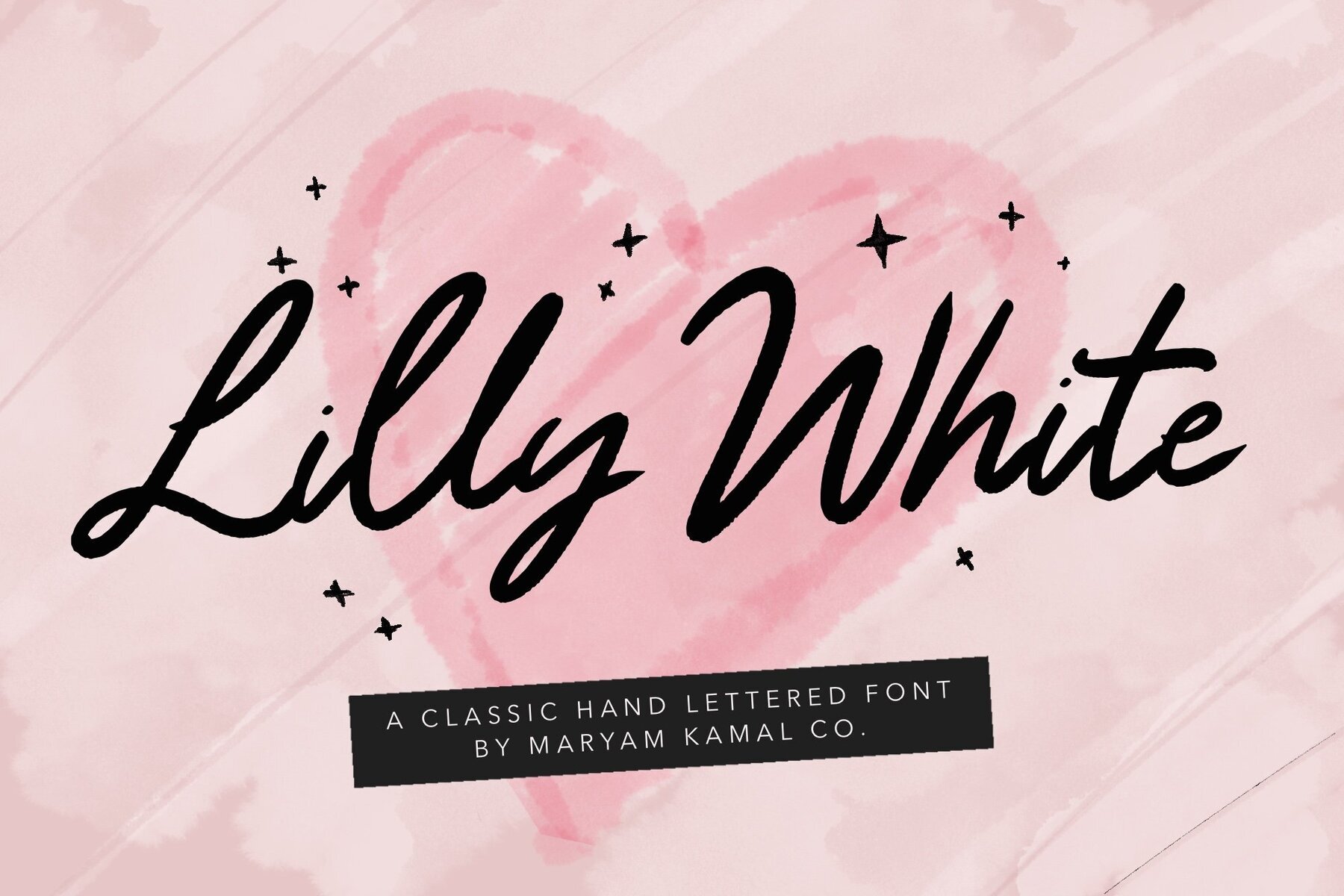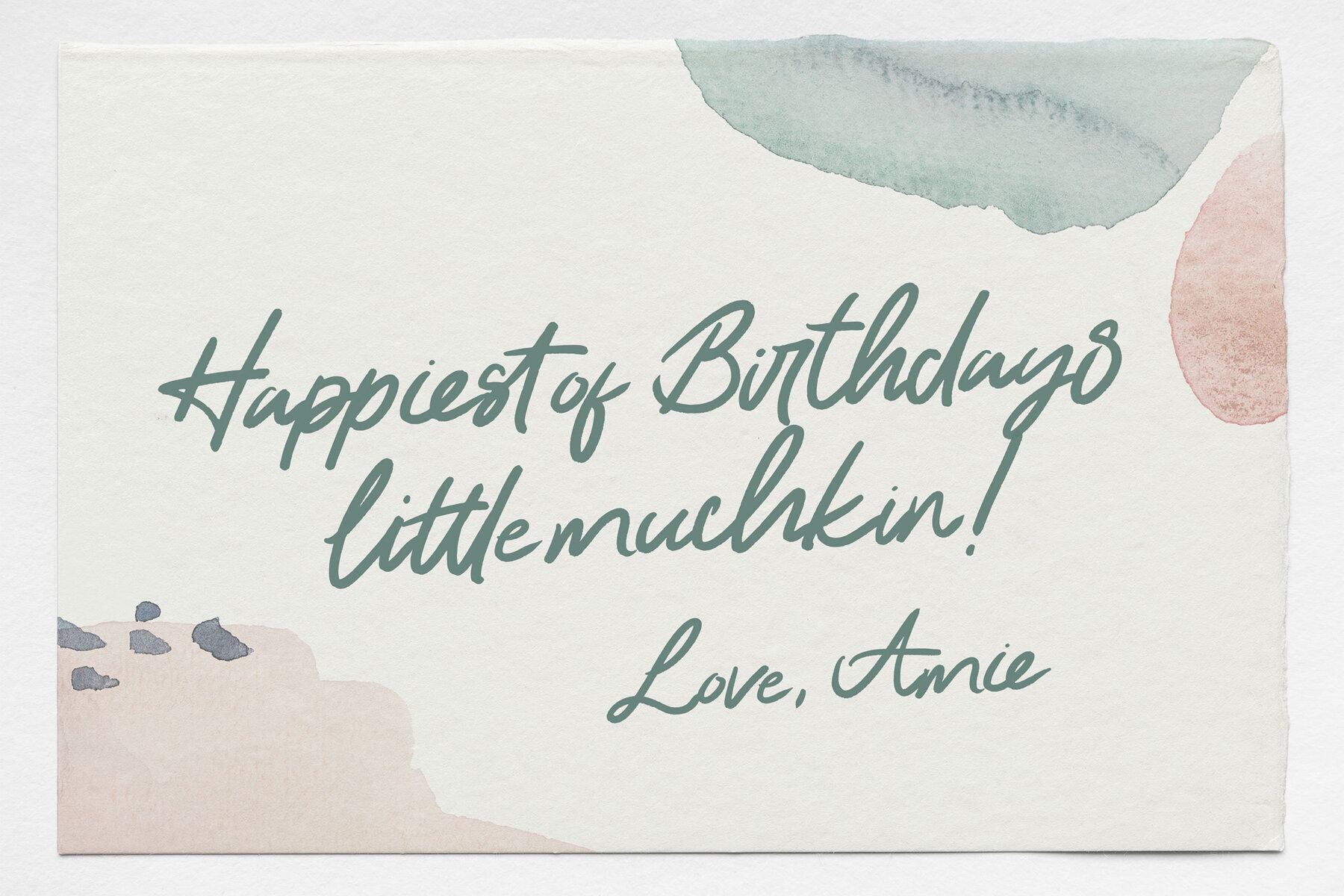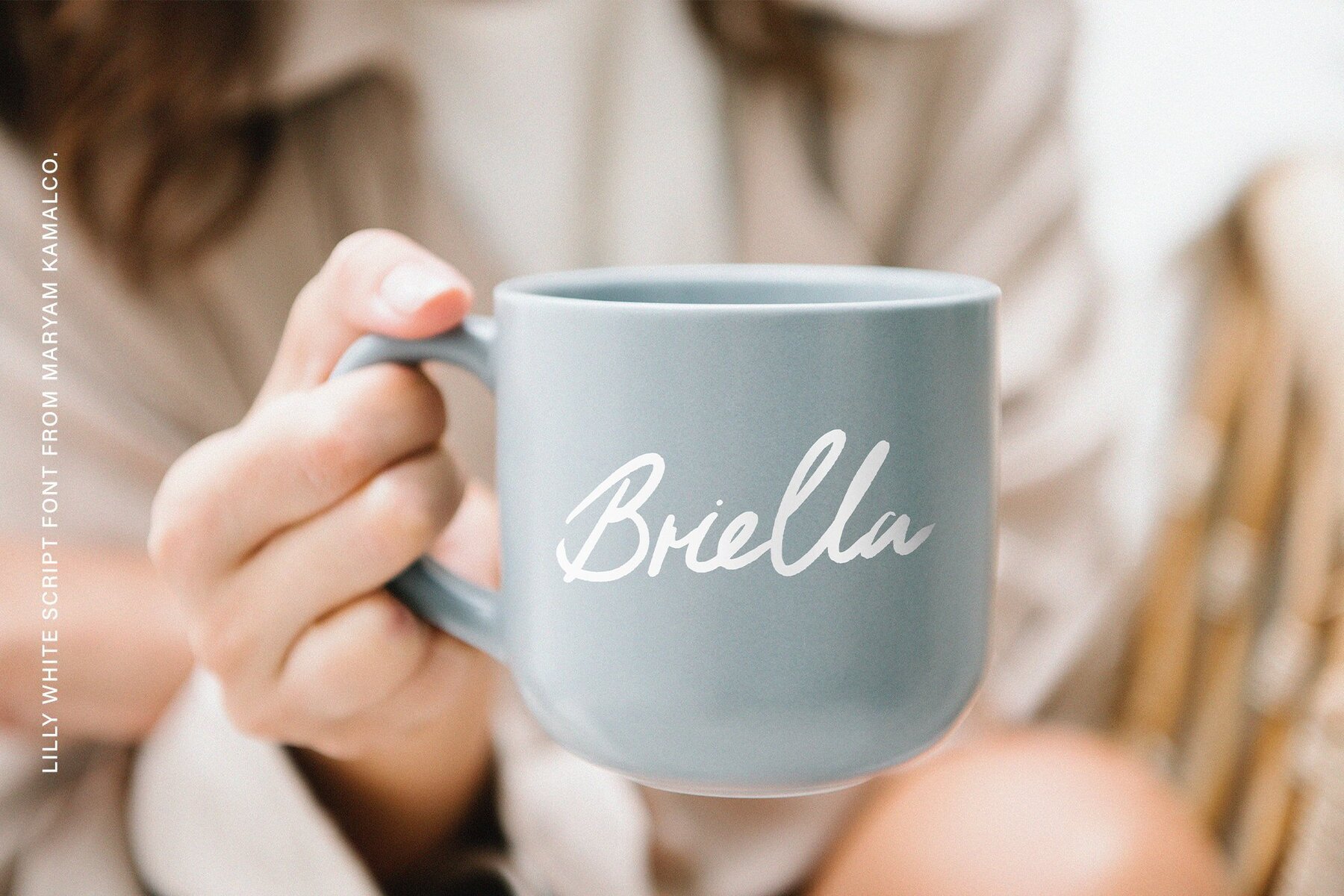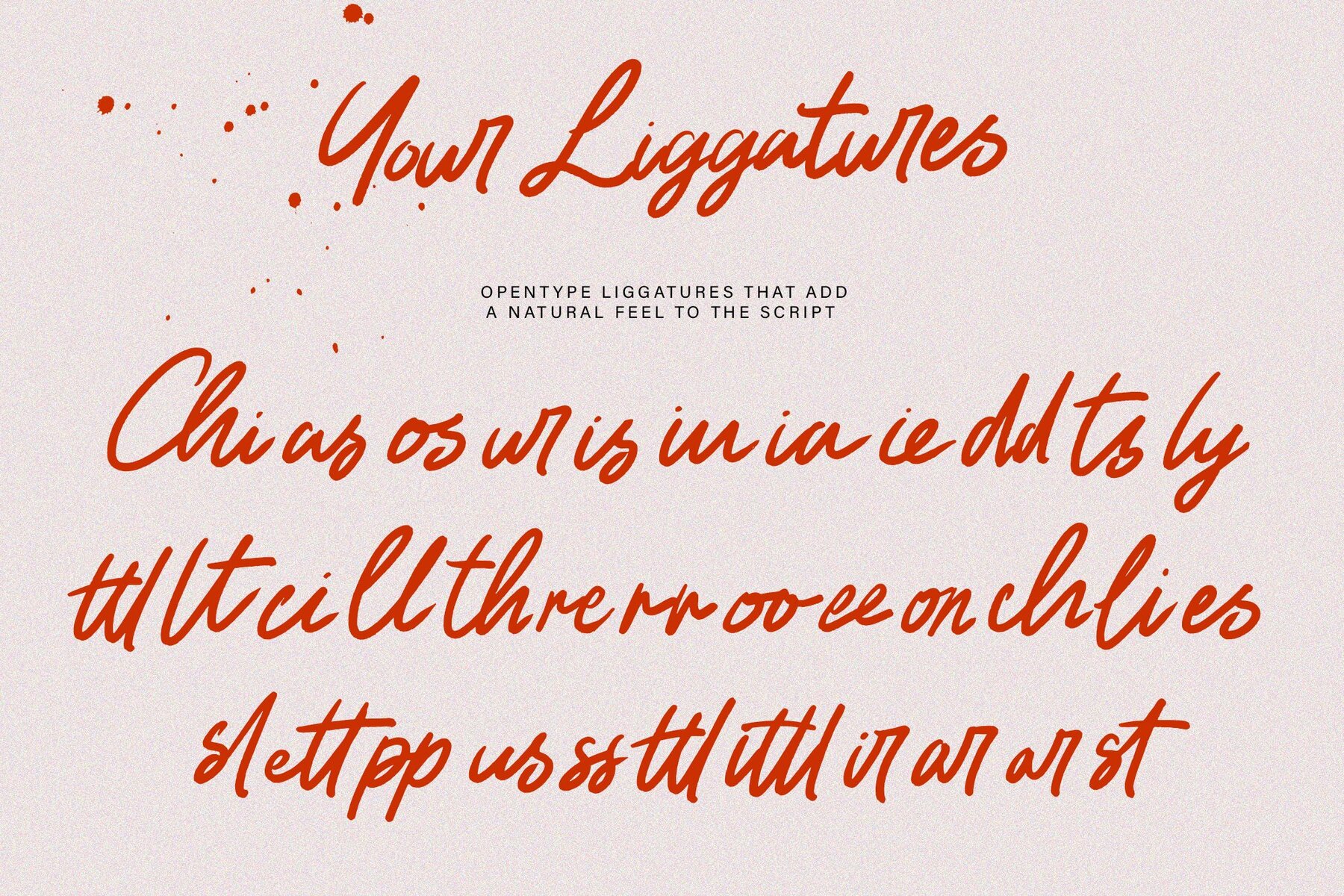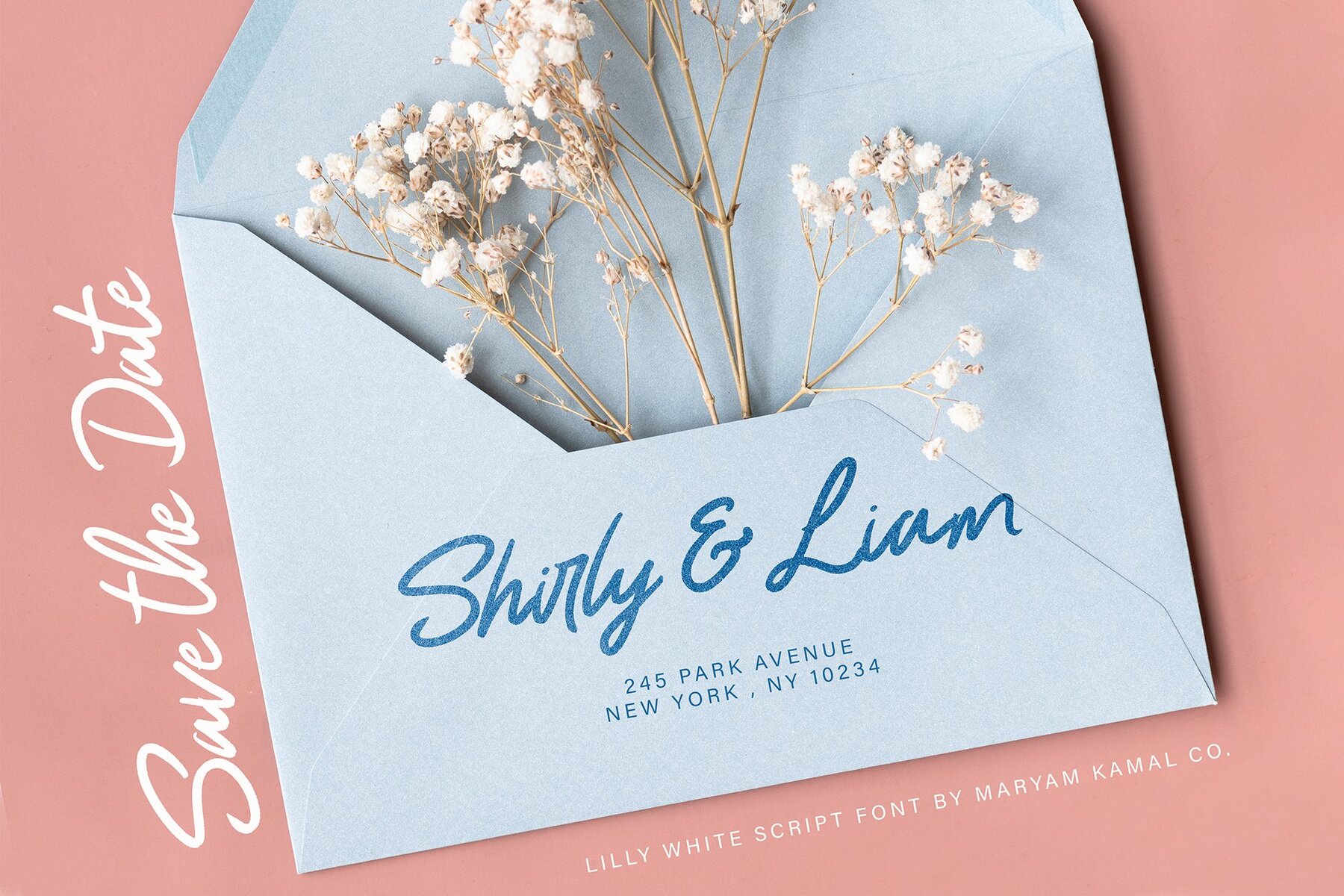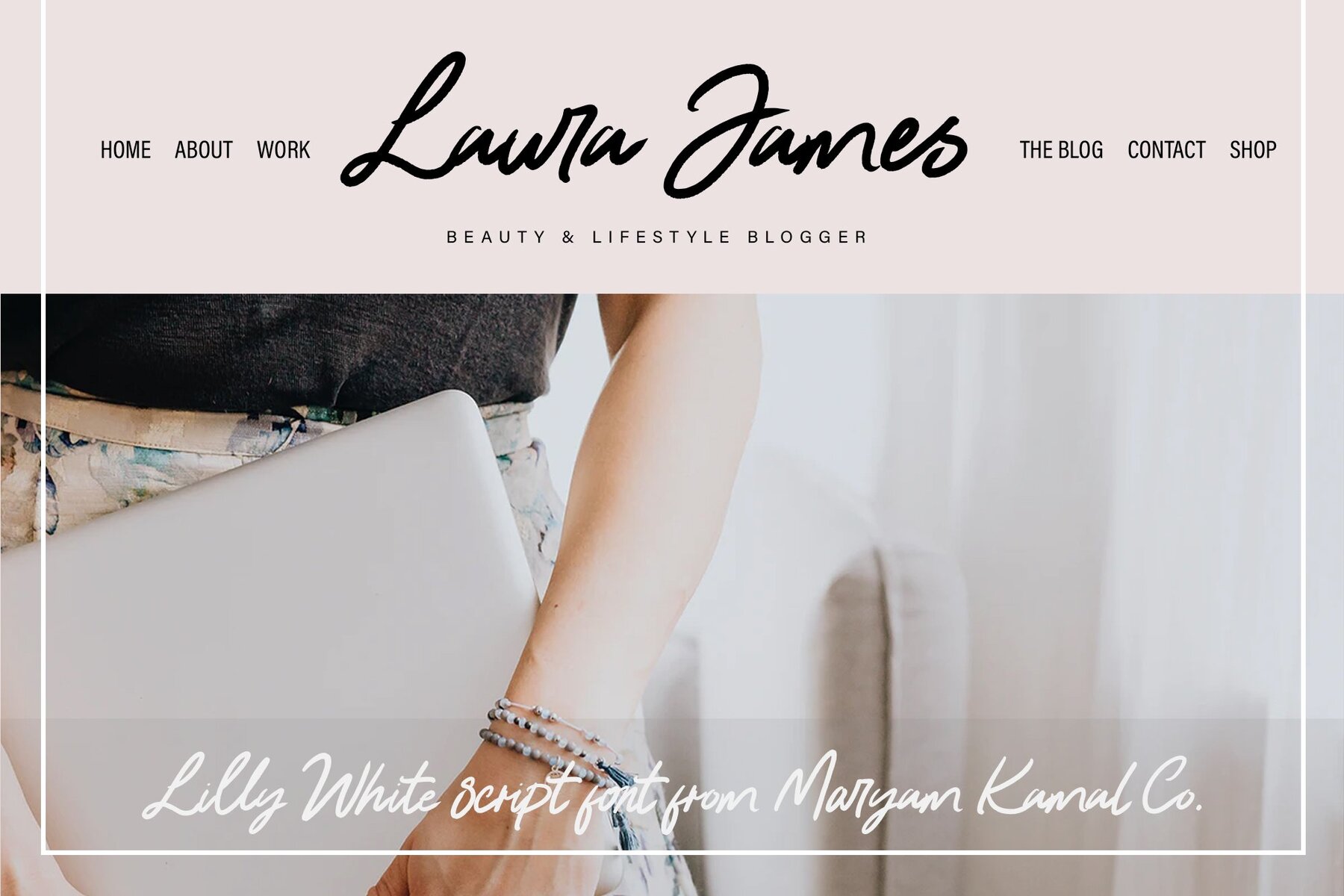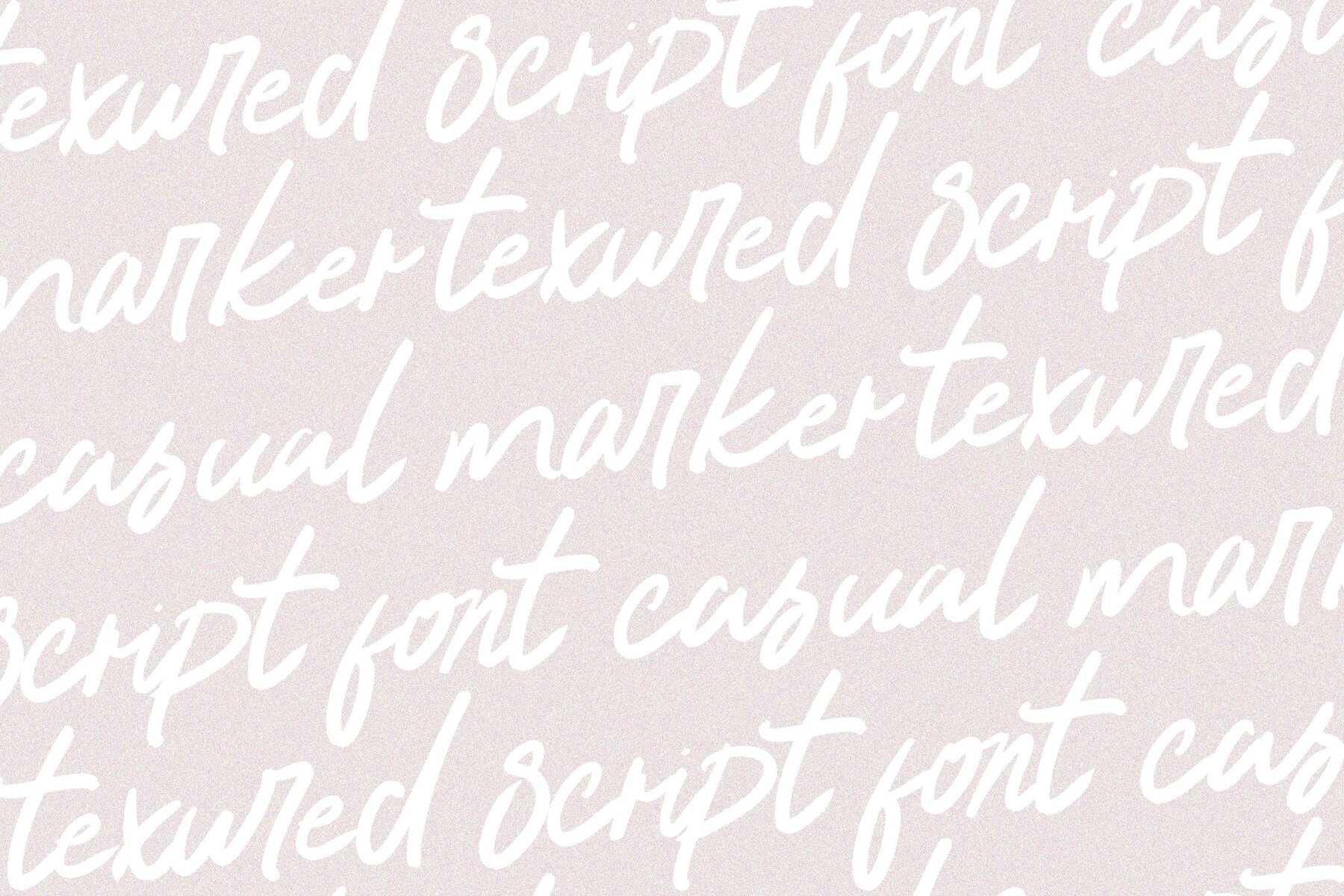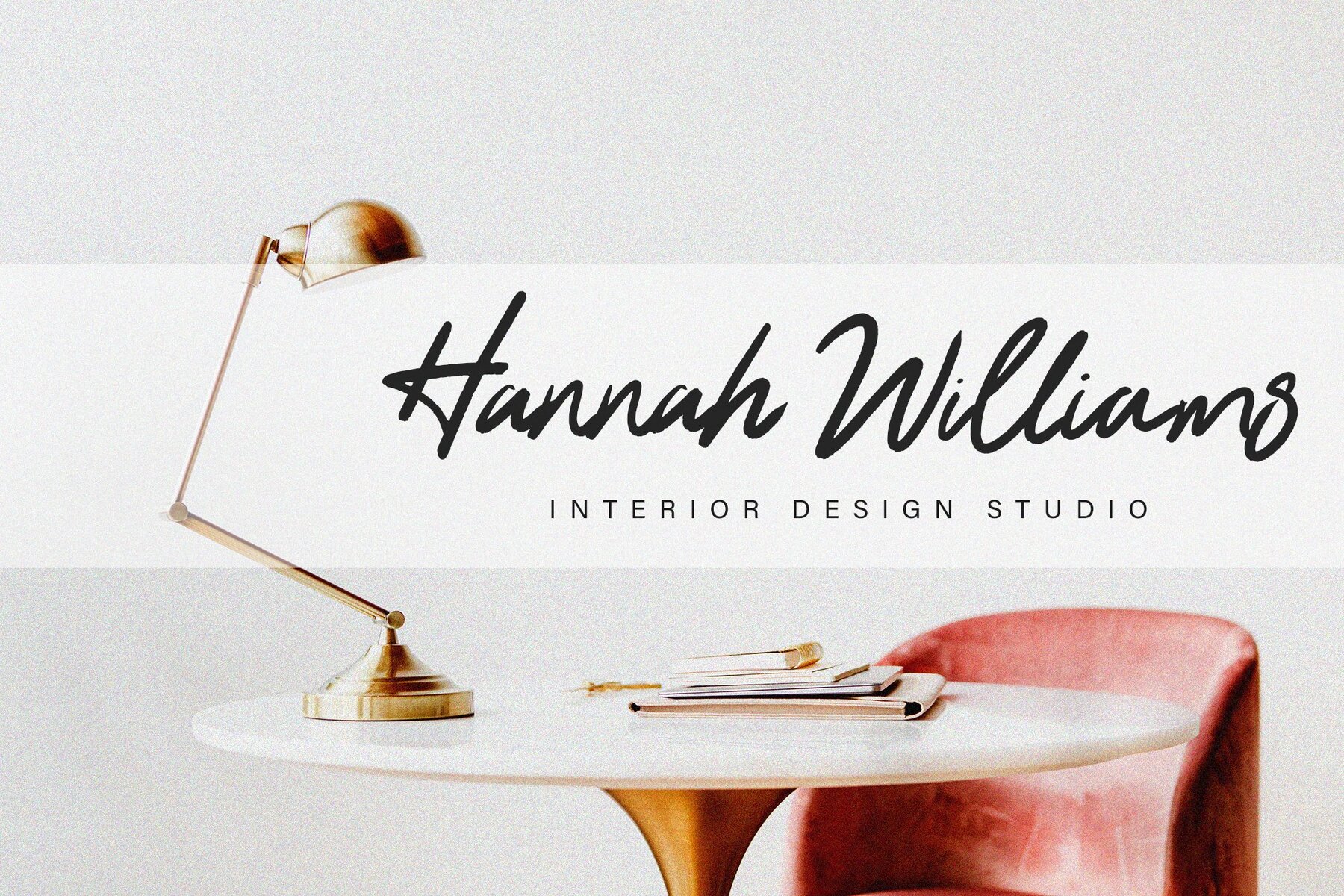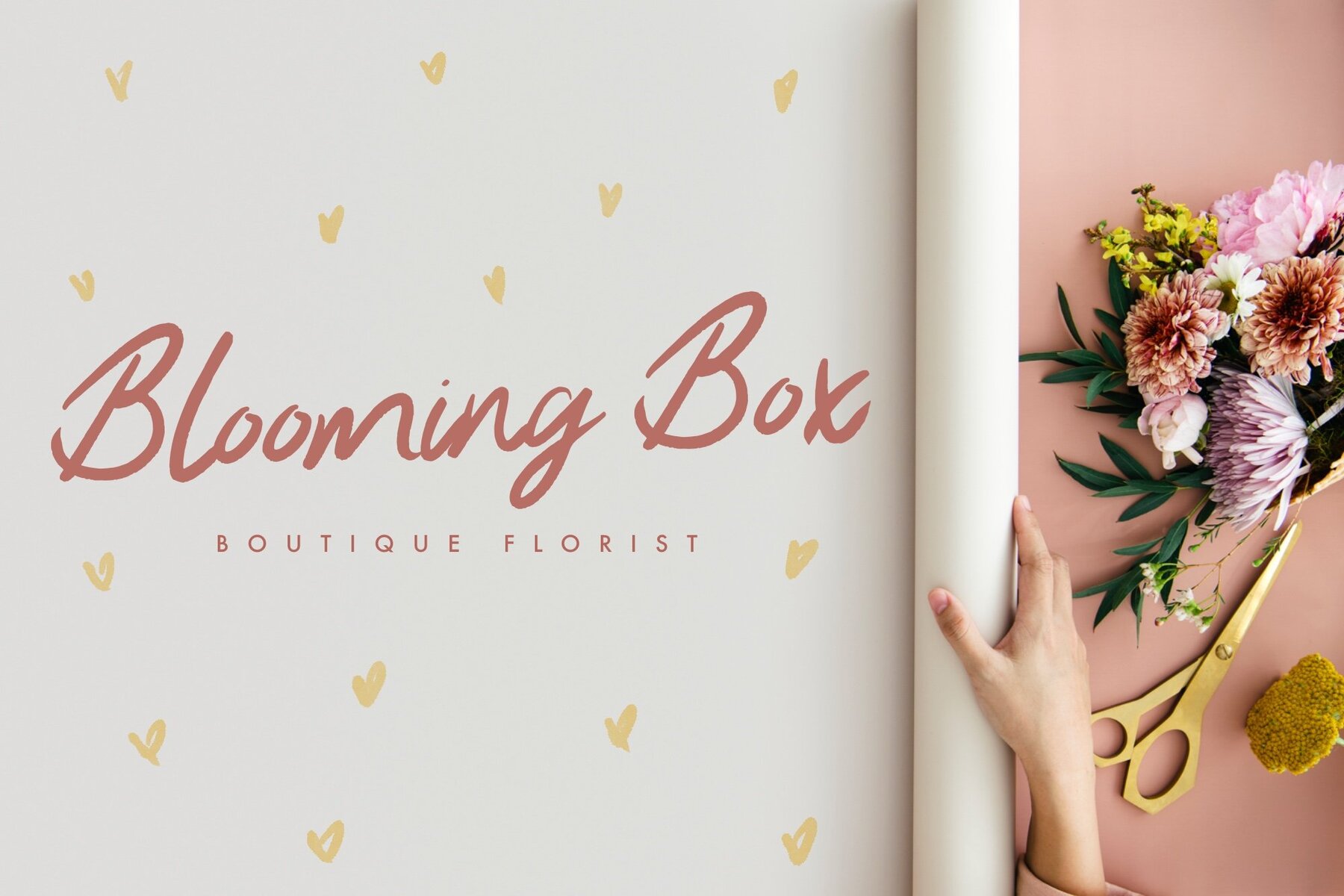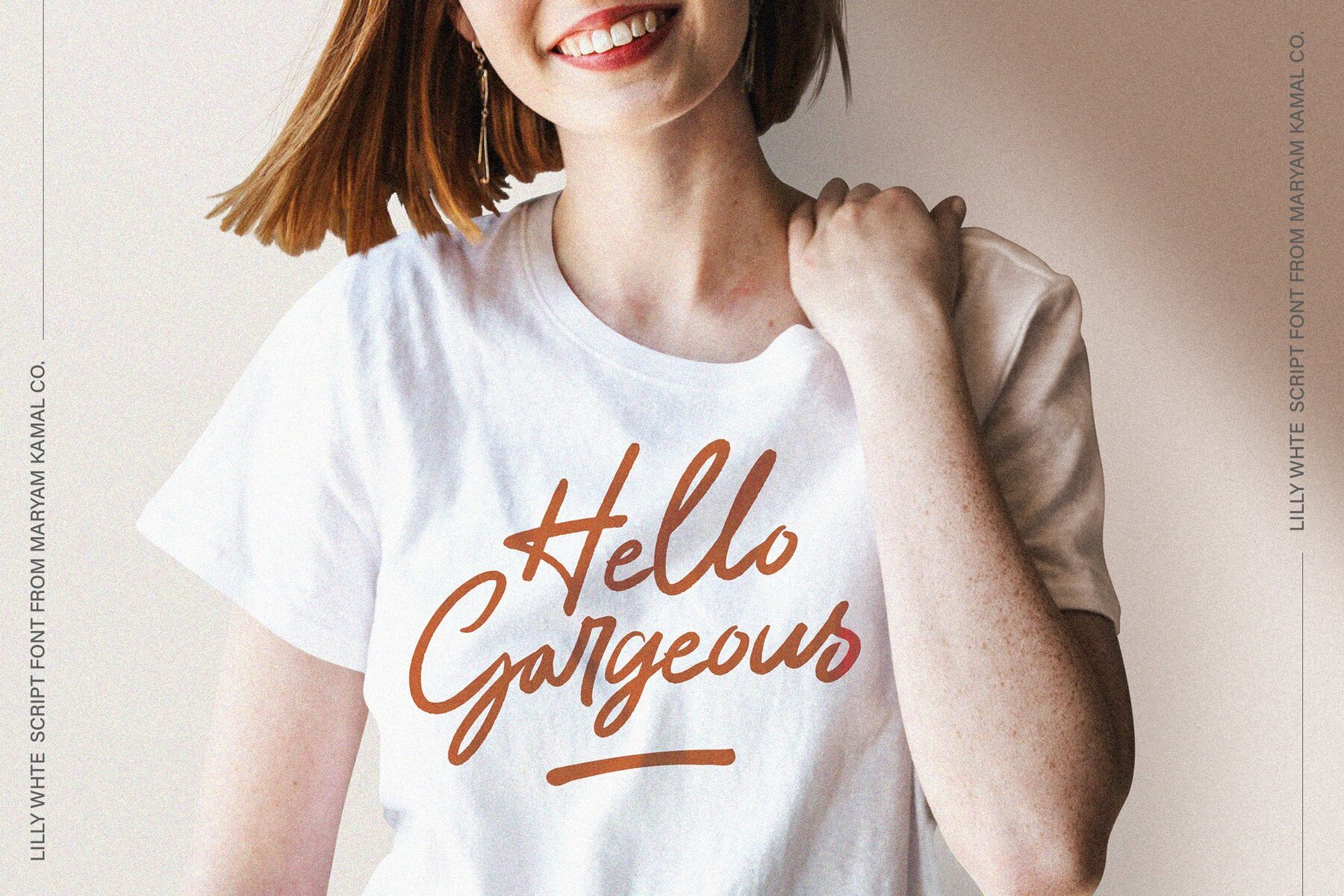
Lily White Font
Lilly White Regular
Introducing Lily White script font, a versatile and fresh hand-lettered typeface. Perfectly imperfect edges give this font an authentic handwritten appearance, ideal for a personal touch in your designs. This font features numerous ligatures, allowing letters to change dynamically as you type, enhancing the natural flow of handwriting. Enable Discretionary Ligatures in Photoshop for an even more authentic look. Supported Characters: á â à ä å ã æ ç é ê è ë í î ì ï ı ñ ó ô ò ö õ ø œ š ß ú û ù ü ý ÿ ž and their uppercase variants. Enjoy your creative journey with Lily White!Lily White Script Font: Hand-Lettered Elegance